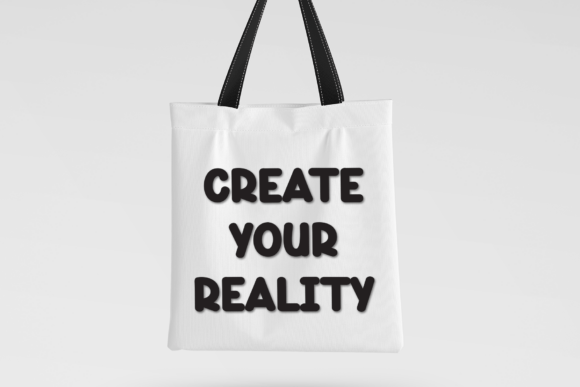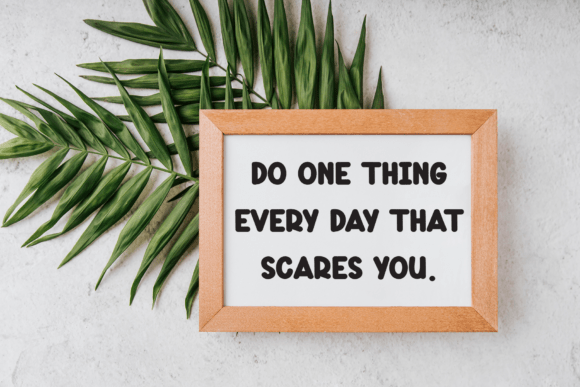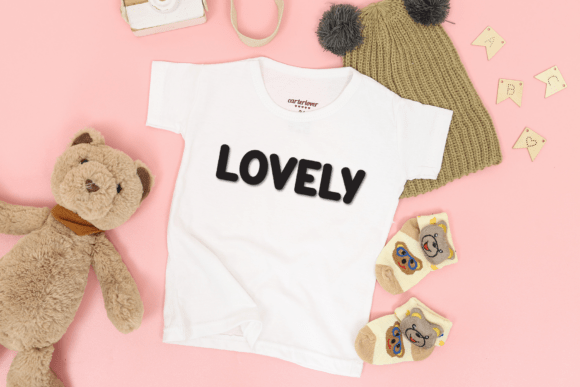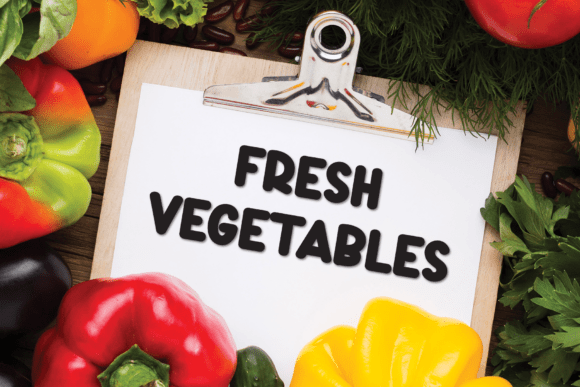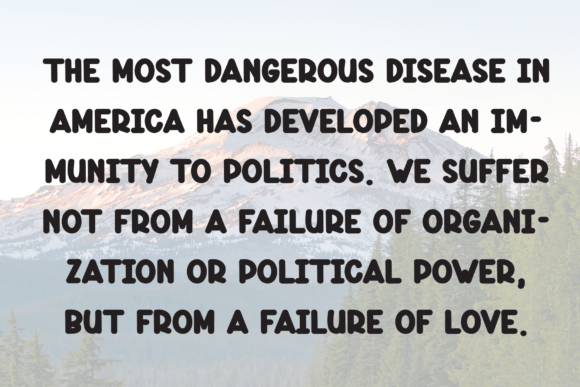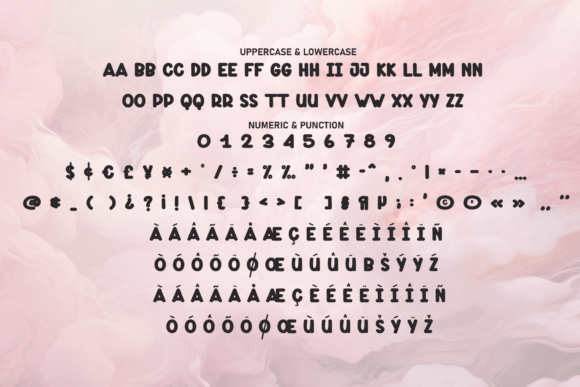
Introduction to Pink Bulky Font
Pink Bulky is a neat and casual display font that radiates fun and relaxation.
With clean lines and an easygoing vibe, itโs perfect for summer posters, event flyers, and playful branding This cheerful typeface brings a breezy, laid-back feel to any creative project or message.
Key Features of Pink Bulky Font
Why Choose Pink Bulky Font?
Pink Bulky Font offers exceptional quality and versatility, making it a valuable addition to your design toolkit. Whether you’re creating for personal projects or commercial use, Pink Bulky Font delivers professional results.